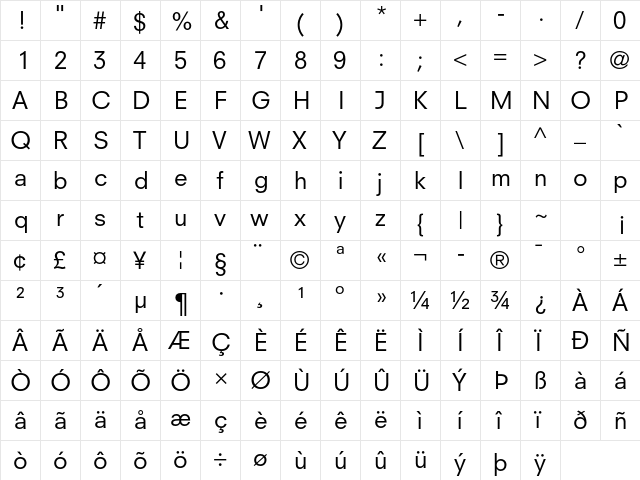
Neuzeit S LT Std Book
| Designer | C. Wilhelm Pischiner |
Design Context for Neuzeit S LT Std Typeface
Neuzeit S LT Std is a composed and adaptable typeface that performs quietly and consistently across a wide range of design contexts. The delicate stroke weight brings airiness and refinement to layouts.